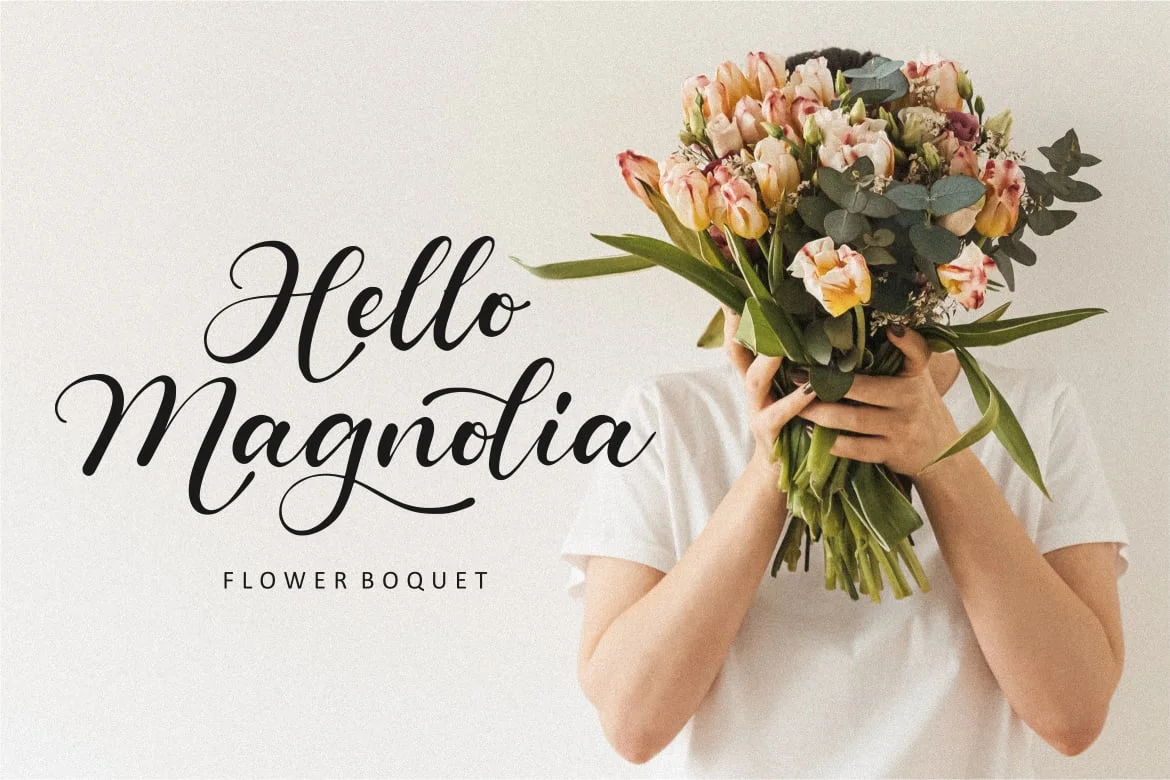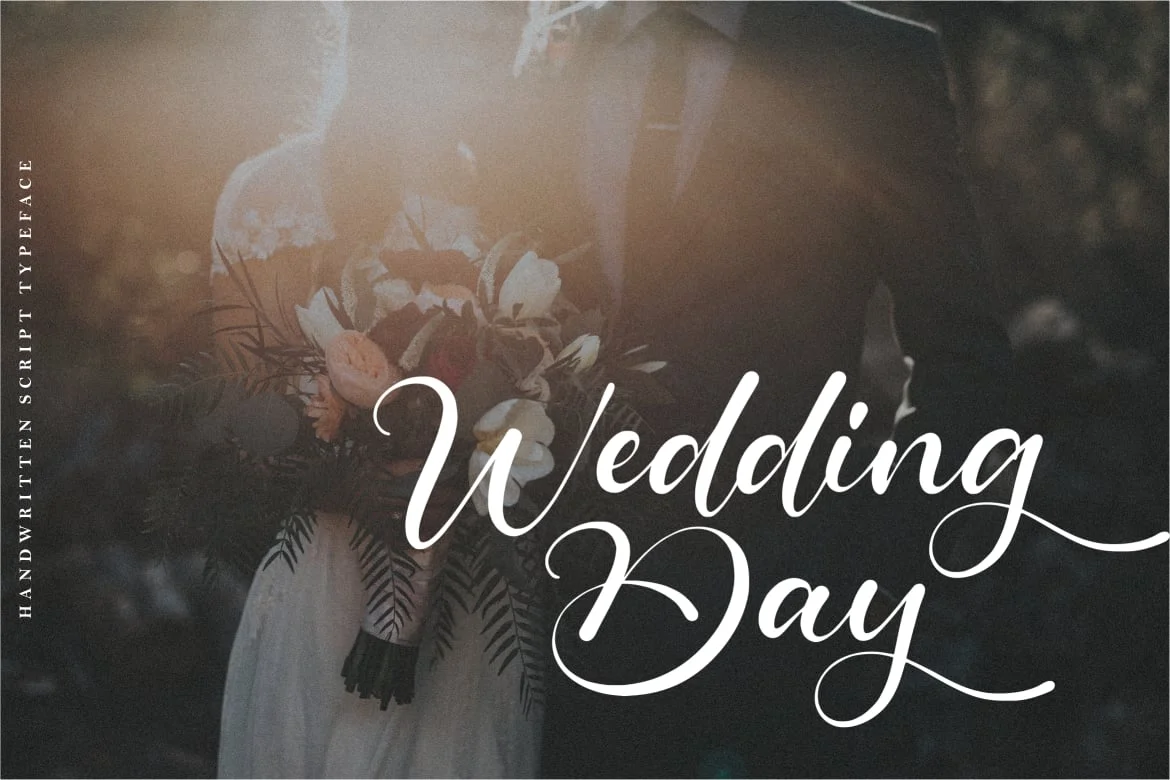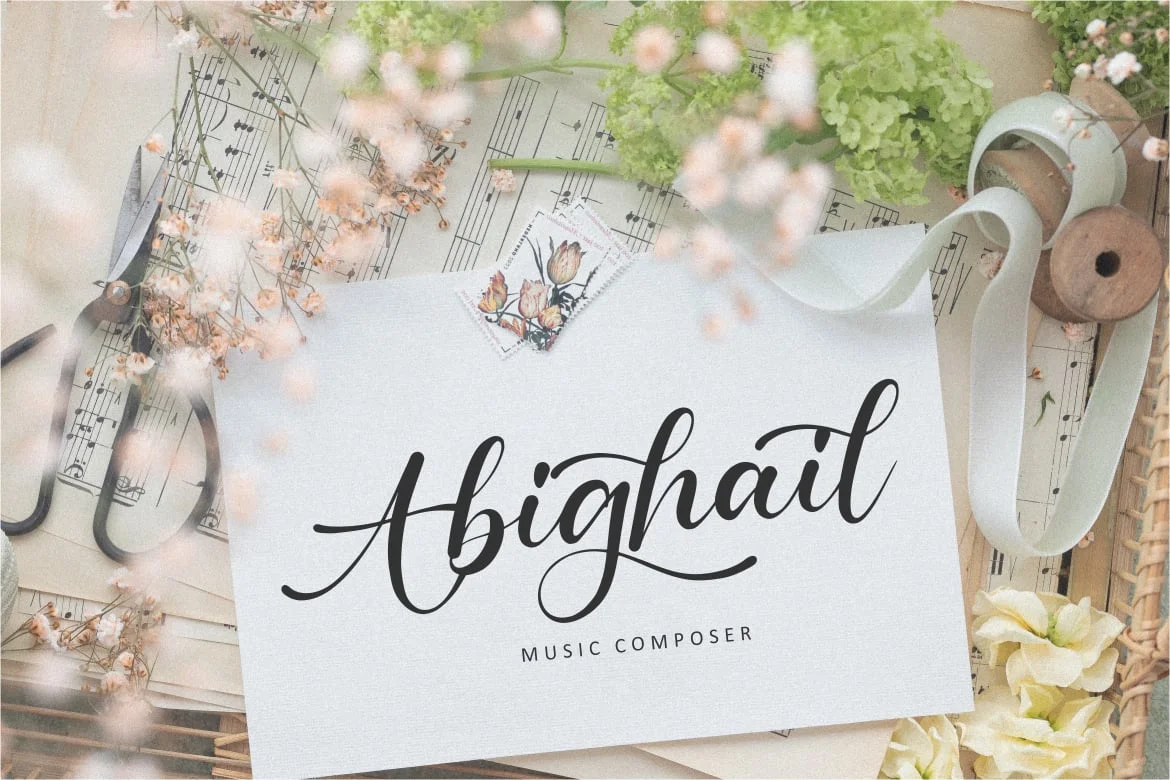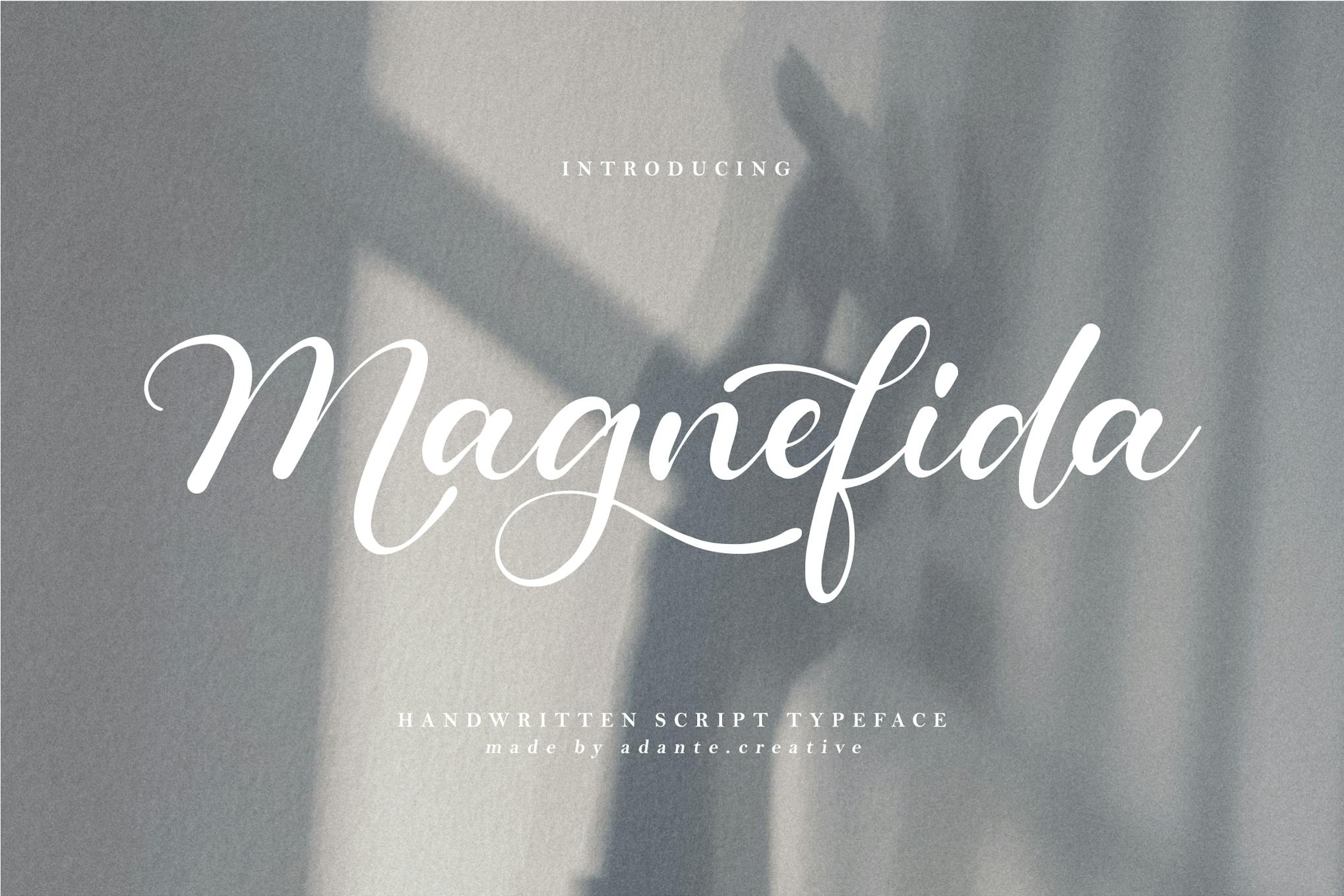
AC - Magnefida Font
The AC - Magnefida Font excels in magnificent design applications including grand wedding invitations, magnificent bridal branding, splendid ceremony logos, grand product packaging, magnificent business cards, splendid portfolios, grand greeting cards, magnificent social media graphics, splendid event signage, and grand marketing materials. Its magnificent script style makes it perfect for projects requiring splendid elegance that communicates grandeur and establishes magnificent brand positioning with audiences seeking grand wedding experiences and splendid sophistication.
What makes the AC - Magnefida Font genuinely exciting is its exceptional ability to capture the magnificent beauty and splendid elegance of grand weddings through magnificently crafted letterforms. The font features flowing, magnificent strokes with splendid flourishes and grand proportions that create a distinctly magnificent appearance. Each character displays remarkable attention to magnificent detail with splendid curves, grand connections, and magnificent spacing that give text a beautifully splendid, hand-lettered quality. The font's magnificent character and splendid rhythm create an atmosphere of grand elegance while maintaining magnificent sophistication and wedding authenticity.
The AC - Magnefida Font family typically includes regular weight with extensive character coverage, featuring uppercase and lowercase letters, numerals, punctuation marks, and international characters. The typeface often incorporates stylistic alternates, contextual ligatures, and magnificent swashes that enhance its signature grandeur. These additional elements provide designers with creative flexibility to customize text appearance and achieve more natural-looking splendid handwriting that reflects the font's magnificent and grand character.
This magnificent signature font distinguishes itself through its remarkable balance of splendid charm and sophisticated elegance. Unlike ordinary or modest fonts that lack magnificent appeal, AC - Magnefida Font embraces the power of splendid design to create magnificent connections with grand wedding audiences. The font's magnificent character makes it essential for grand wedding planners, splendid brands, and magnificent celebration businesses where creating magnificent wedding experiences and splendid memories is fundamental to success in grand wedding markets.
The AC - Magnefida Font offers designers an exceptional opportunity to incorporate magnificent elegance into their splendid wedding projects. From grand wedding venues to magnificent celebration brands, this font delivers the splendid signature aesthetic that resonates with couples seeking magnificent and splendidly sophisticated wedding experiences. Its grand appeal ensures your designs communicate magnificent beauty while the signature styling adds distinctive personality that reflects splendid romance and magnificent sophistication in any application requiring grand typography solutions.
Magnefida is a Handwritten Script Typeface beautiful font, for wedding invitations, greeting cards, and stationery. They lend a sense of elegance and sophistication to the design, setting the tone for special events and celebrations. This font includes OTF, TTF & Woff Software that you can use to use this font: Adobe Illustrator, Adobe Photoshop, Microsoft Word, Corel Draw, And Inkscape, etc.